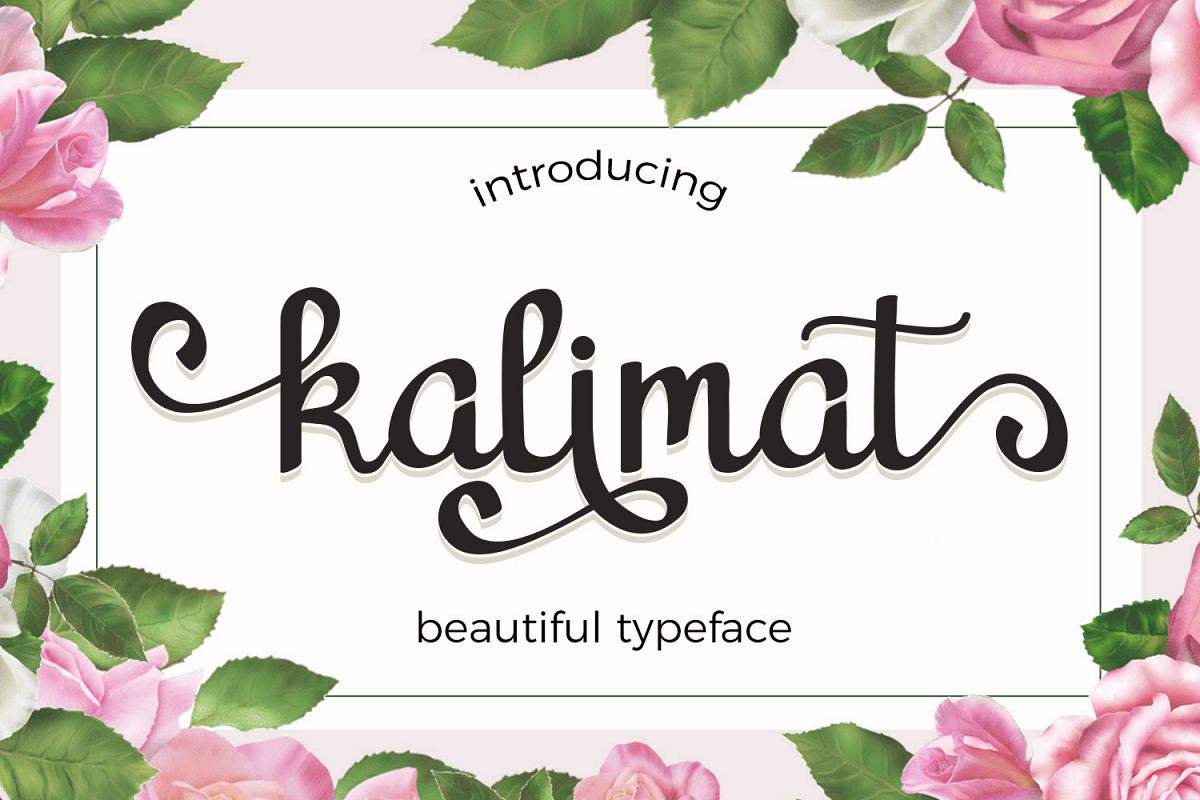
Kalimat
Kalimat is beautiful font inspired from handwritting style. This font suitable for any design purpose such as headings, logos, wedding invitation, news, poster, quote design, letterhead etc.
Kalimat font has some alternate characters, including initial and terminal letters, stylistic alternate, ligatures and multiple language. This font is PUA encoded, so you can easily add alternate character to your designs.